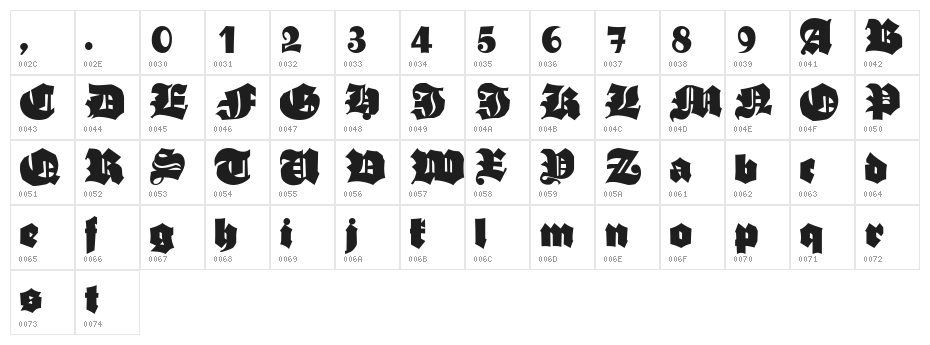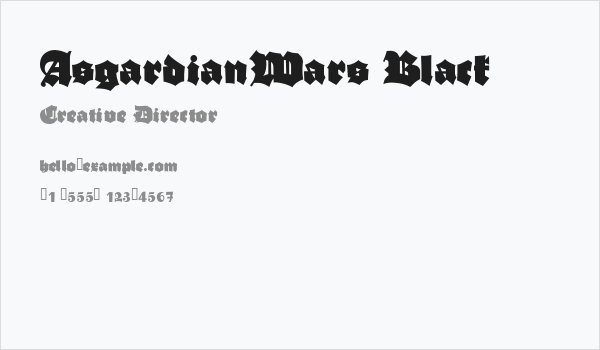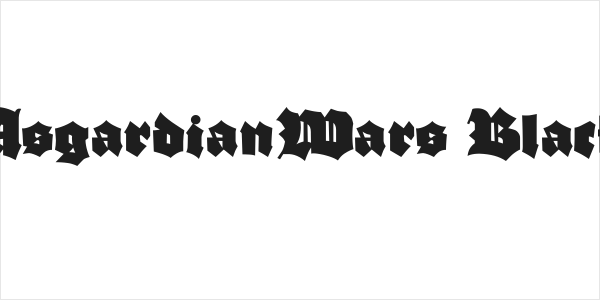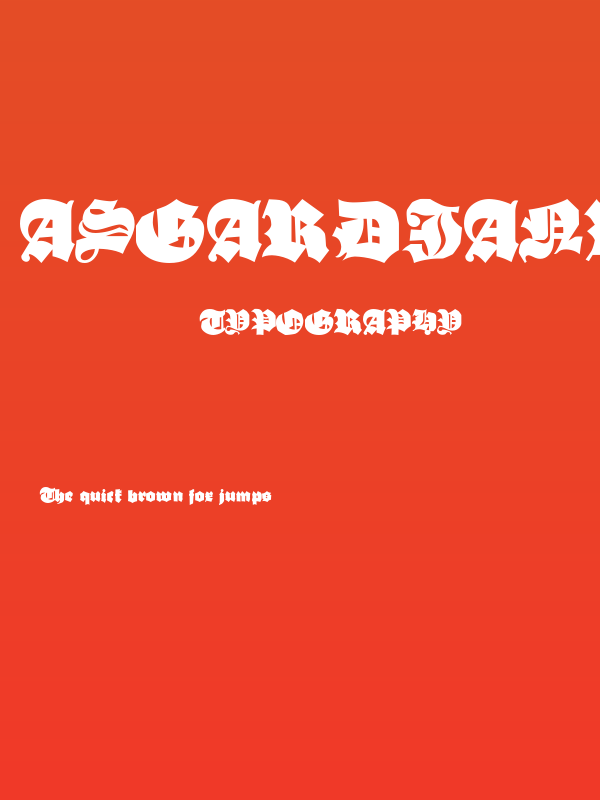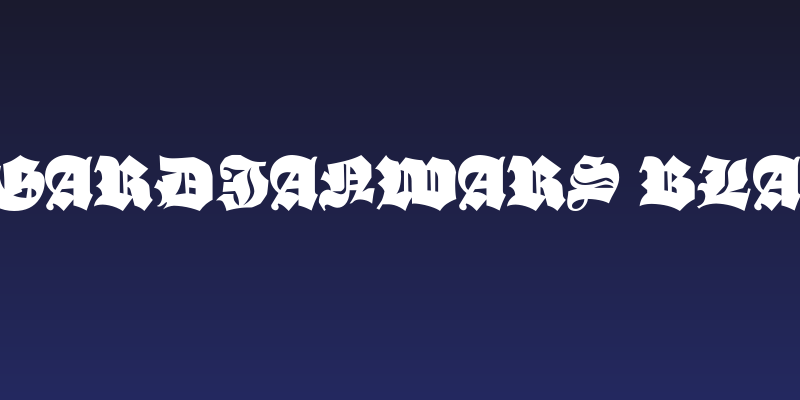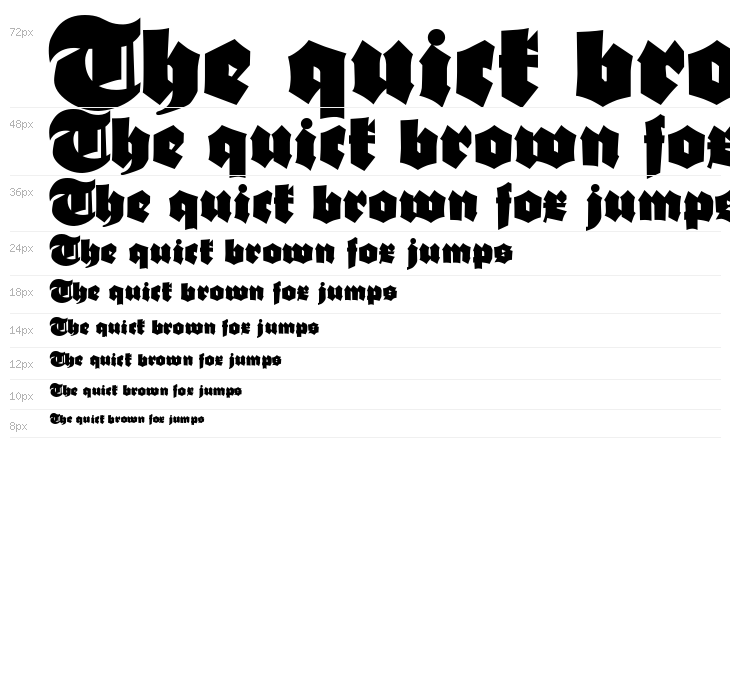
AsgardianWars Black Font
AsgardianWars Black Description
This font features a bold and dramatic style, reminiscent of medieval or gothic script. The uppercase letters are ornate with sharp, angular edges and intricate detailing, giving them a strong, authoritative presence. The lowercase letters maintain a similar aesthetic, with thick strokes and a consistent weight throughout. The numerals are bold and clear, matching the overall heavy and impactful design. Special characters are designed to complement the boldness of the alphabet, ensuring a cohesive look across all text elements. This font's unique style makes it suitable for projects that require a historical or fantasy theme, providing a sense of grandeur and tradition.
| Proposed Projects | Ideal for fantasy-themed designs, historical event posters, or video game titles. |